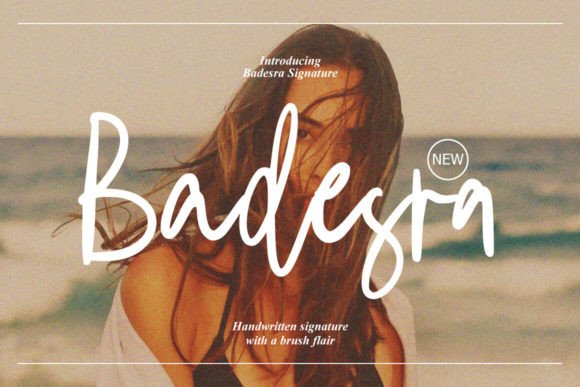
Step into the world of Badesra Signature, a breathtaking script font that will captivate your imagination with its elegant curves and natural charm. Inspired by the tranquil landscapes and flowing rivers, Badesra Signature is the perfect font for adding a touch of sophistication and beauty to your creative projects.
Picture this: you're a landscape designer, and you're working on a new project that demands a font that exudes serenity and harmony. Badesra Signature answers your call with its intricate swirls and delicate strokes, perfectly capturing the essence of nature's tranquility. Your clients will be mesmerized by the way this font brings their outdoor dreamscapes to life.
Perhaps you're a graphic designer embarking on a new branding venture. Badesra Signature stands ready to elevate your designs with its graceful presence. Its decorative characters and dancing baseline add a touch of whimsy and elegance, setting your brand apart from the mundane. Whether it's a logo, a poster, or a business card, Badesra Signature will undoubtedly leave a lasting impression.
And for the creative souls who love to express themselves through handmade crafts, Badesra Signature is your perfect companion. Its distinctive style adds a personal touch to greeting cards, invitations, and other paper crafts. Imagine the delight your friends and family will feel when they receive a card adorned with your heartfelt words, beautifully penned in Badesra Signature.
With over 250 glyphs and a comprehensive range of OpenType features, Badesra Signature grants you limitless creative possibilities. Swashes, stylistic sets, stylistic alternates, and ligatures come together to provide you with endless opportunities for customization. Unleash your creativity and watch as Badesra Signature transforms your projects into true works of art.